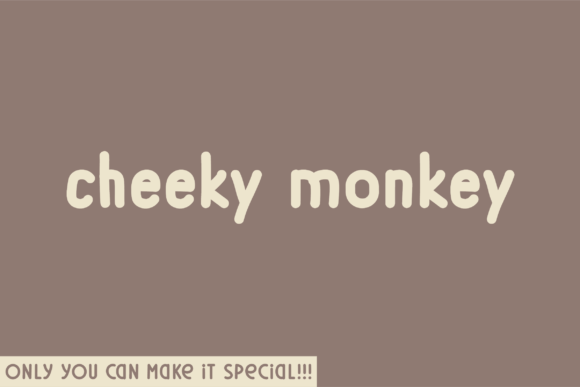
Introduction to Cheeky Monkey Font
Cheeky Monkey is a bold and unique sans serif font, perfect for quotes, notes, tees, logos, social media and any design that requires a classic touch.
Key Features of Cheeky Monkey Font